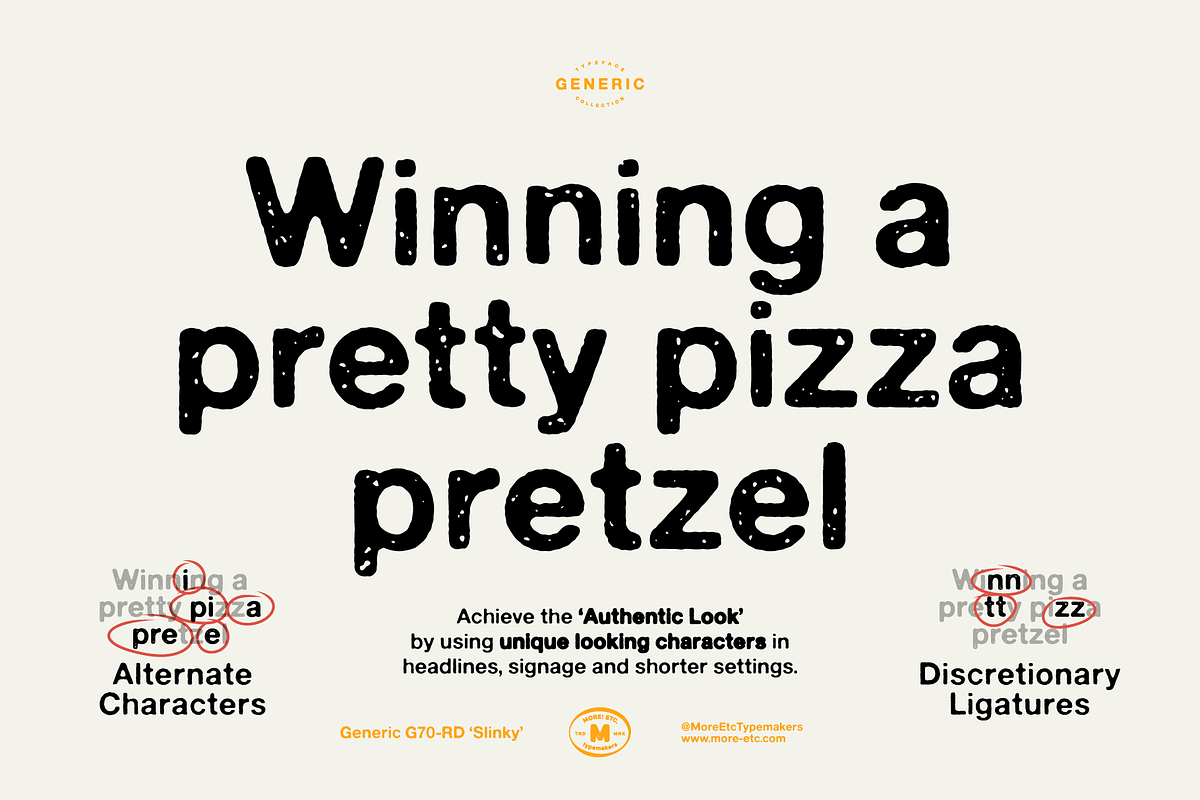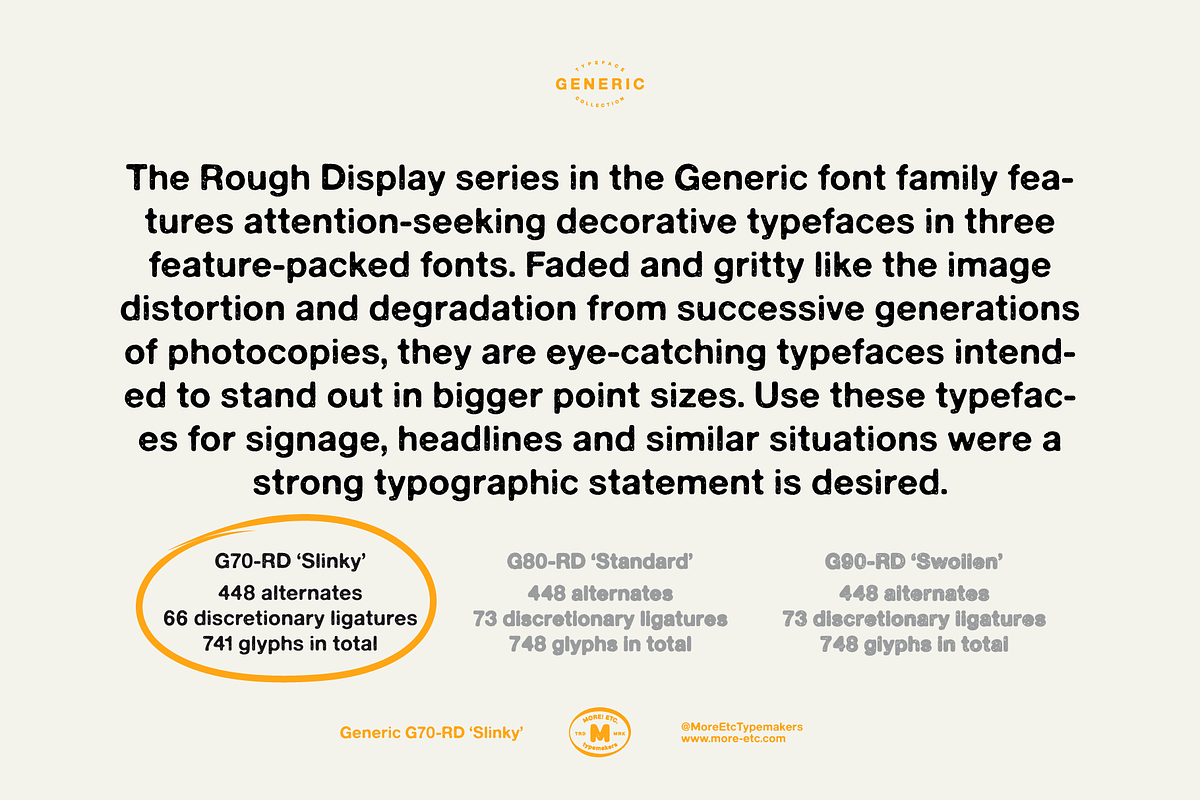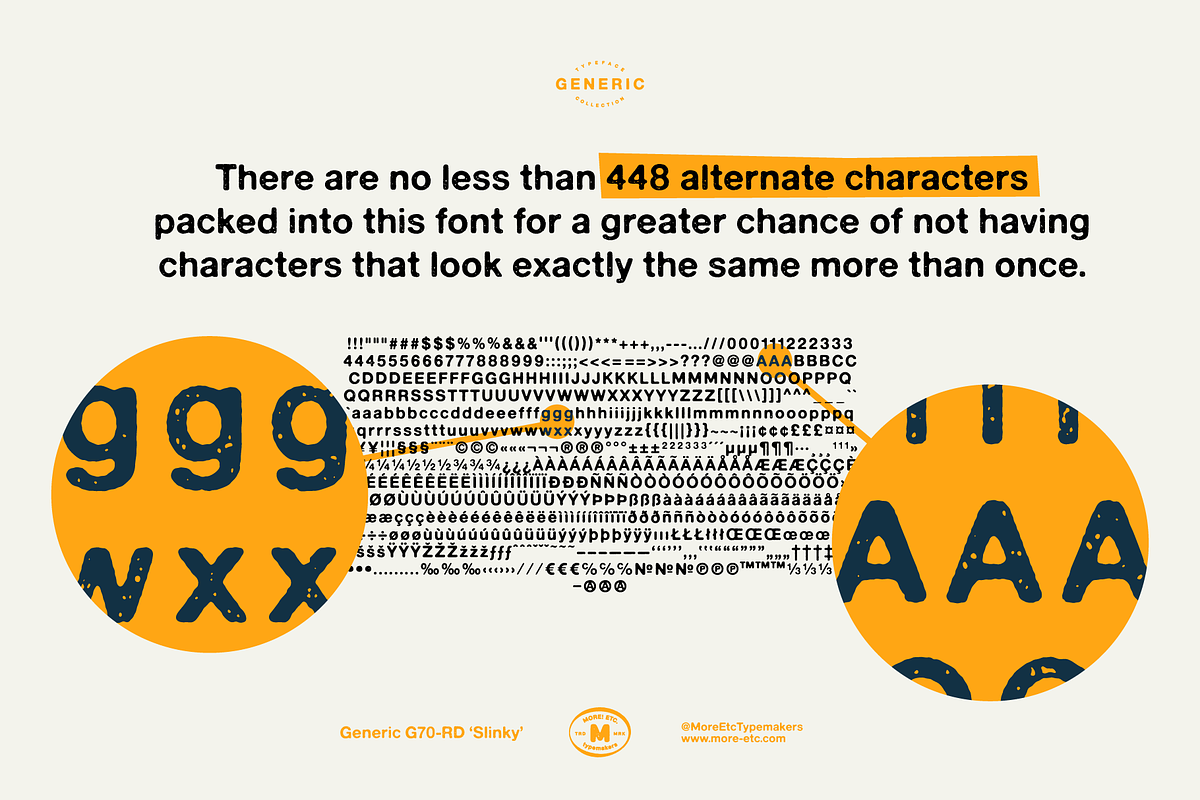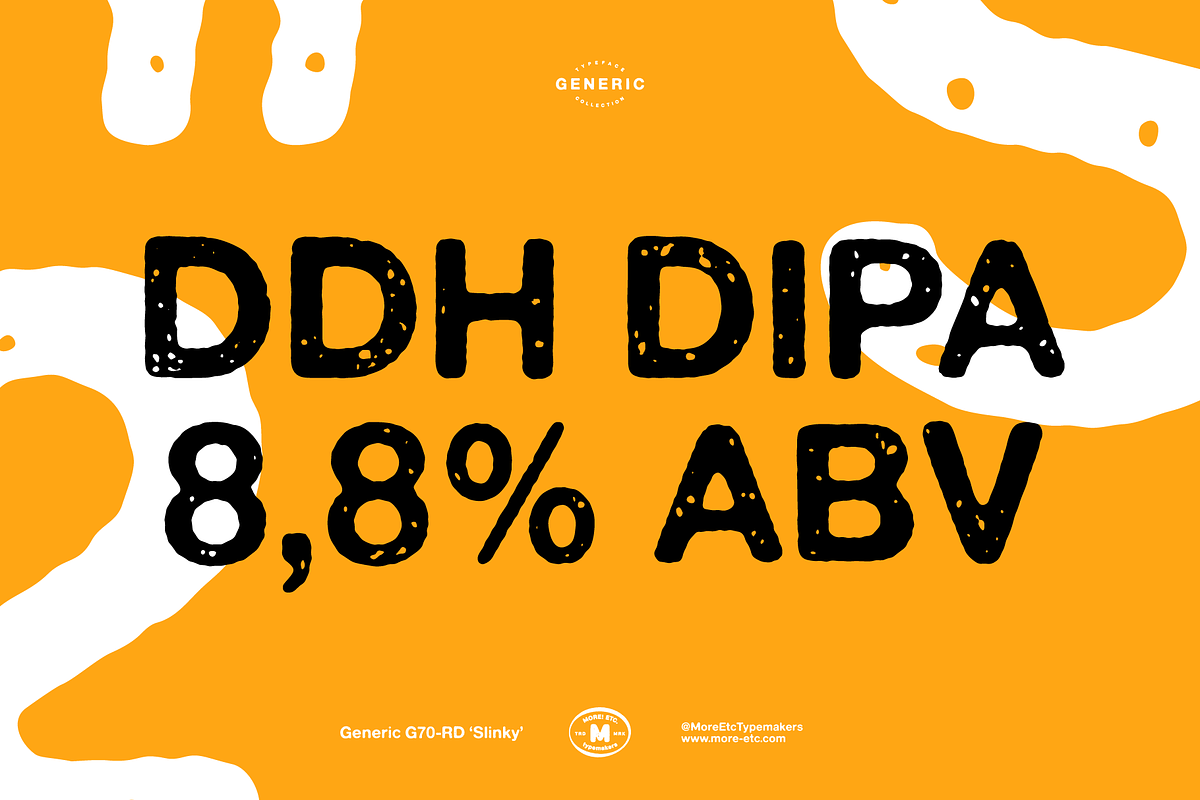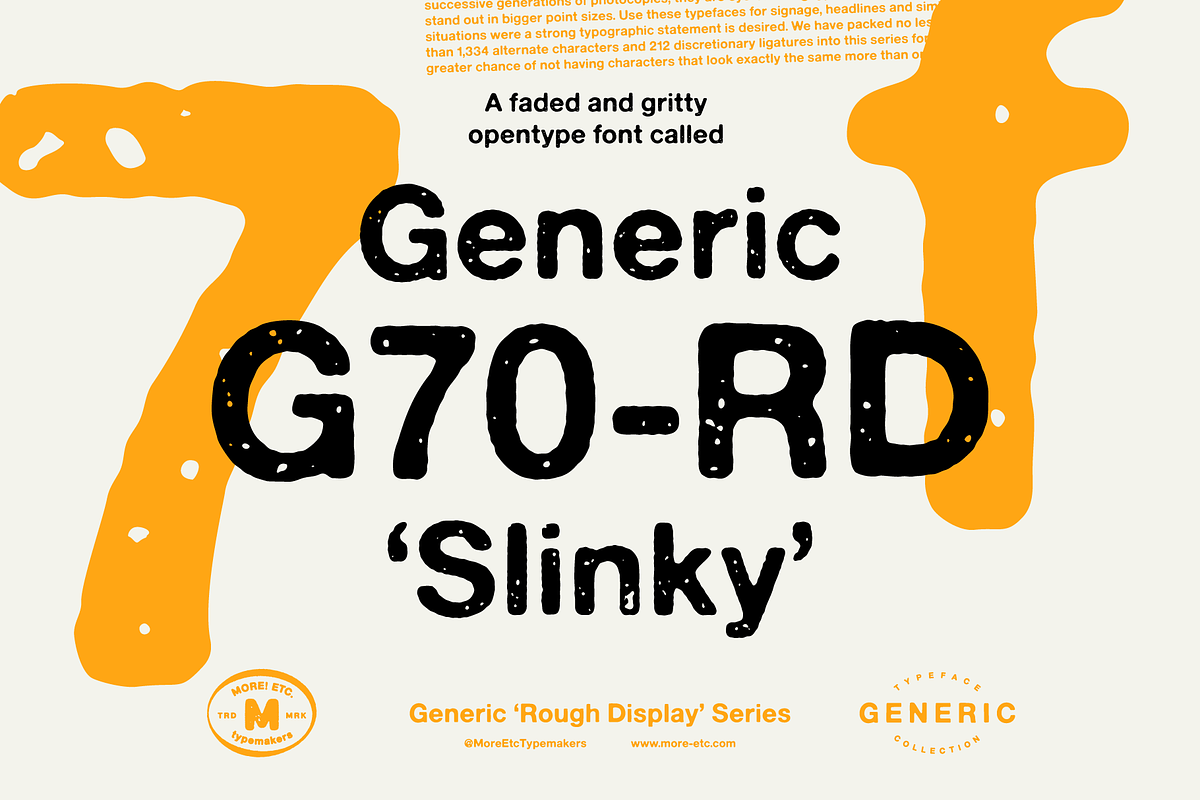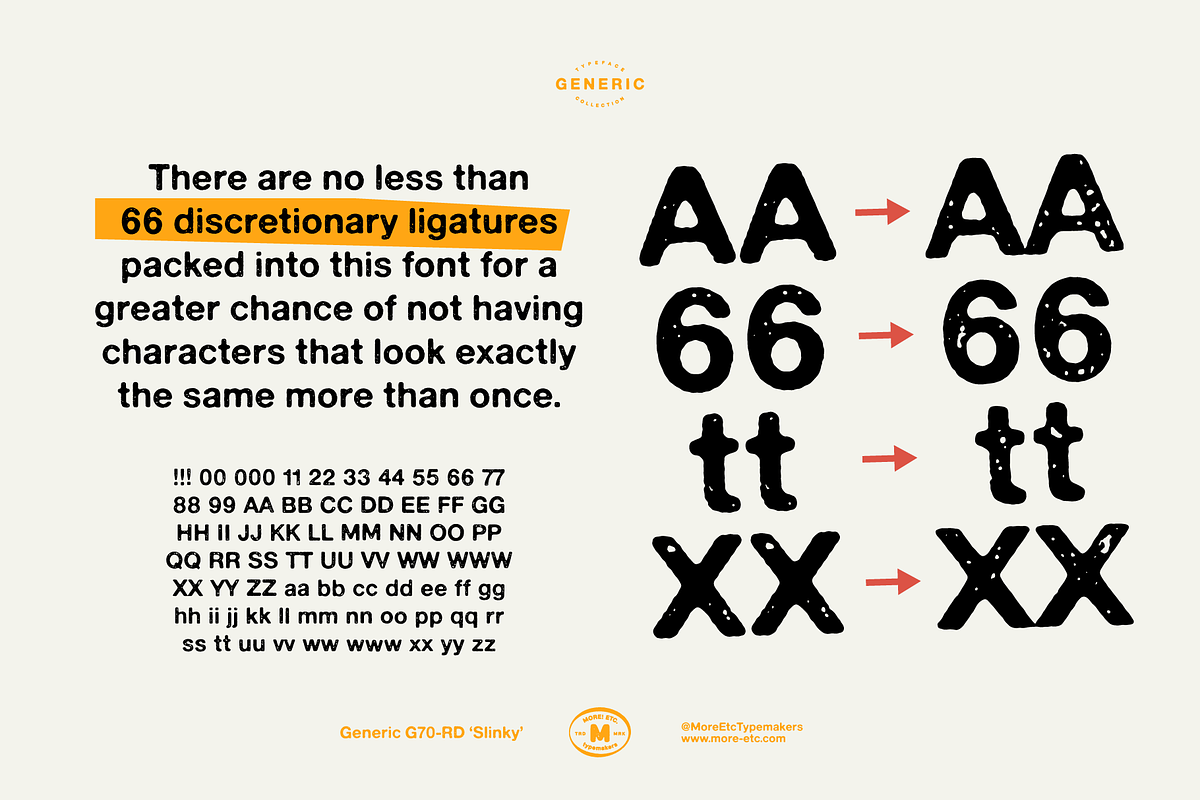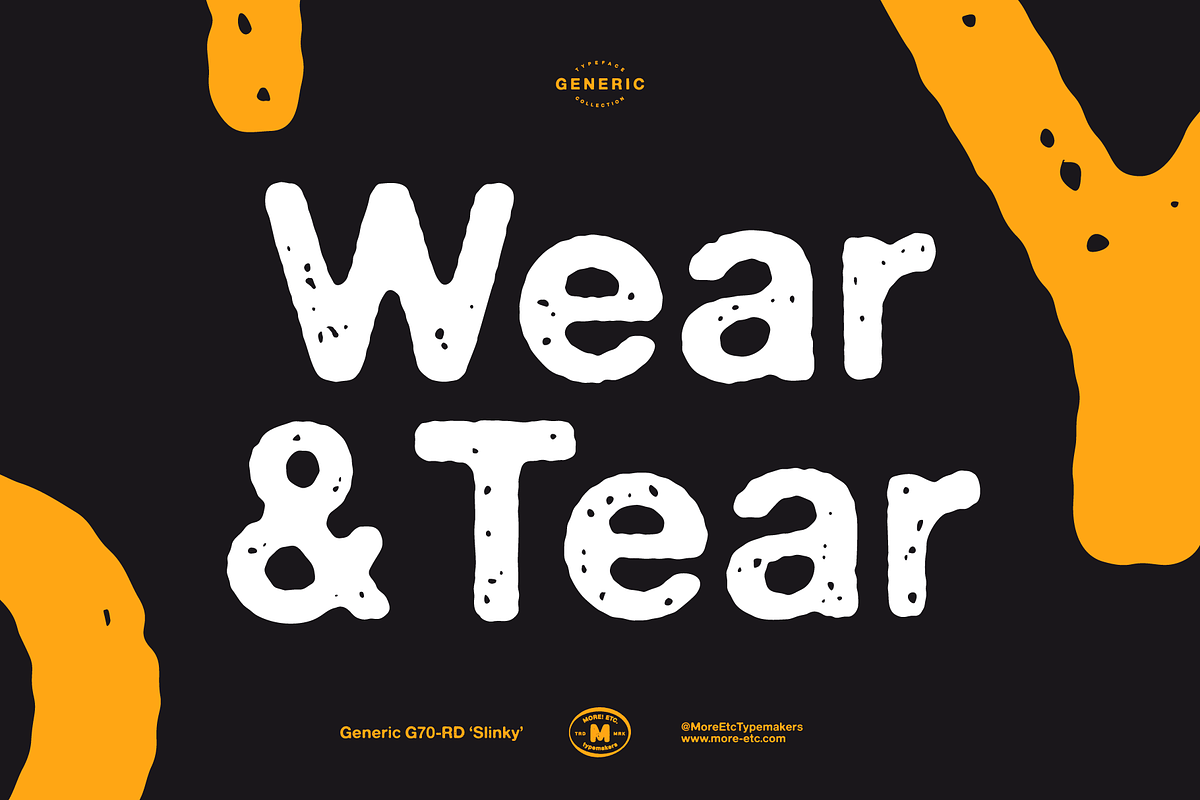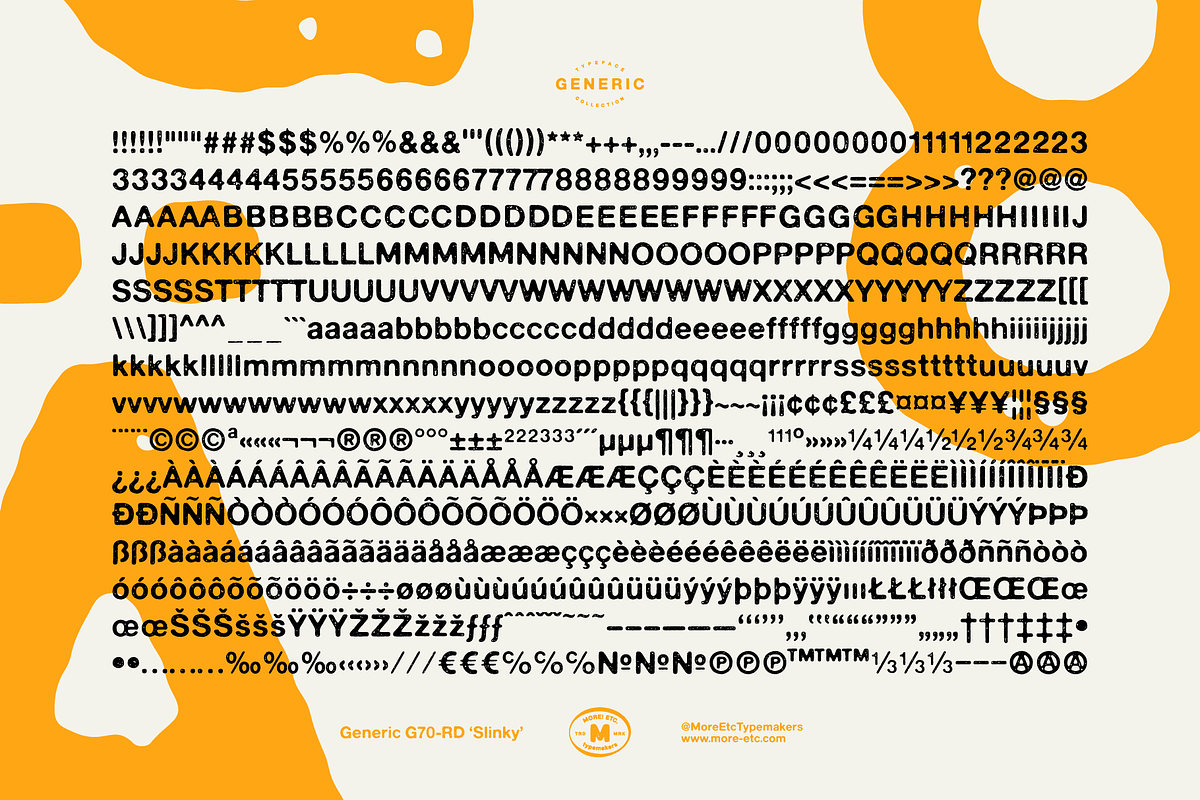
Generic G70-RD 'Slinky'
Say hello to the Generic G70-RD 'Slinky' typeface – an under-exposed rough and decorative typeface in a regular weight. A display font packed with alternate characters & ligatures.
This is an attention-seeking and decorative typeface packed with OpenType features such as alternate characters and discretionary ligatures. Faded and gritty like the image distortion and degradation from successive generations of photocopies, it's an eye-catching typeface intended to stand out in bigger point sizes. Use it for signage, headlines and similar situations were a strong typographic statement is desired.
OpenType features: Alternate characters & discretionary ligatures
I have packed no less than 448 alternate characters and 66 discretionary ligatures into this font for a greater chance of not having characters that look exactly the same more than once. Just swap out the repeating characters with alternate characters and use ligatures for a more authentic experience and make your text look "less like a font".
Font summary:
- Display font with tons of personality
- Faded, Rough, Gritty & Decorative
- Attention-seeking
- 741 glyphs
- 448 alternate characters
- 66 discretionary ligatures
The Generic Typeface Collection is a series of sans-serif typefaces inspired by the craftsmanship of graphic design, typesetting, and printing in the analogue era – before Adobe, Macintosh computers and desktop publishing – when dinosaurs ruled the earth. This is an attempt to incorporate spirit and personality into a set of typefaces without losing distinction. You might call it a homage to non-perfection. I call it human.
The Generic Typeface Collection consists of 11 fonts divided into four series. The three standard series – the Formal Release series, the Coarse Copy series, and the Rough Display series – all contain three fonts each. The Extra Splendor series contains a couple of shadow fonts for that little extra sparkle.